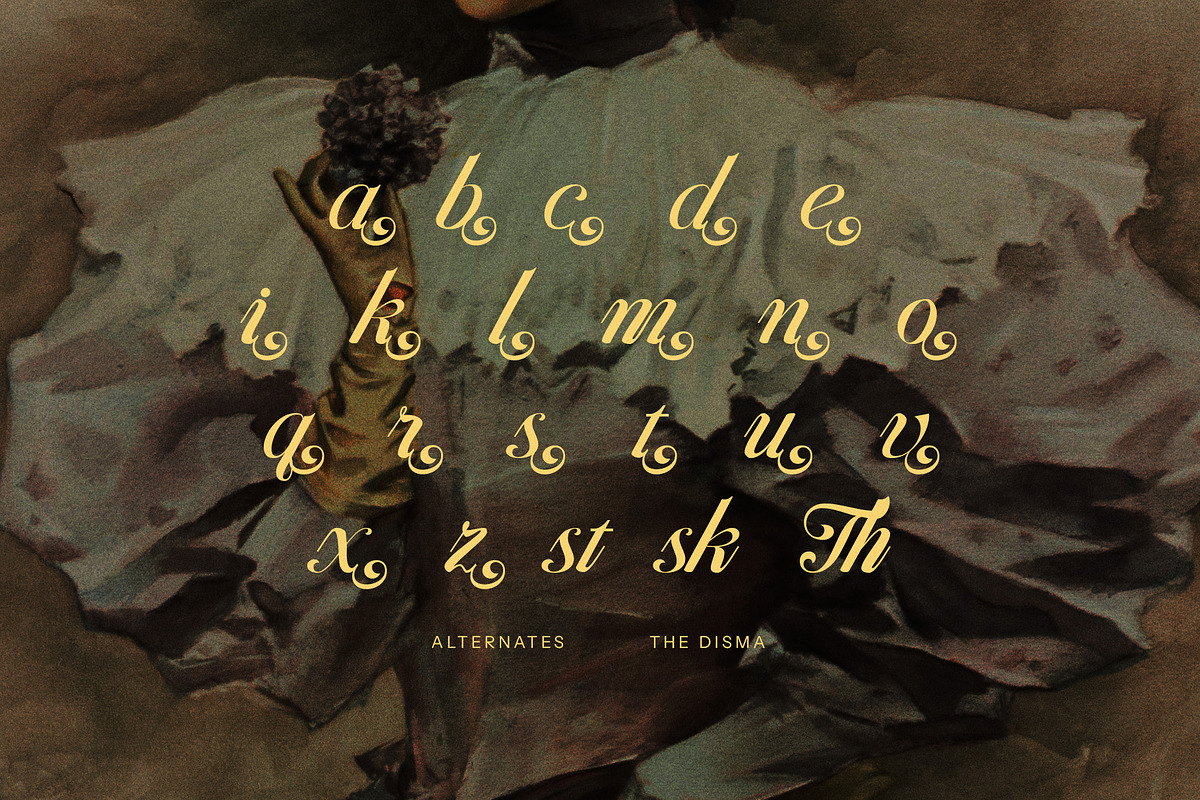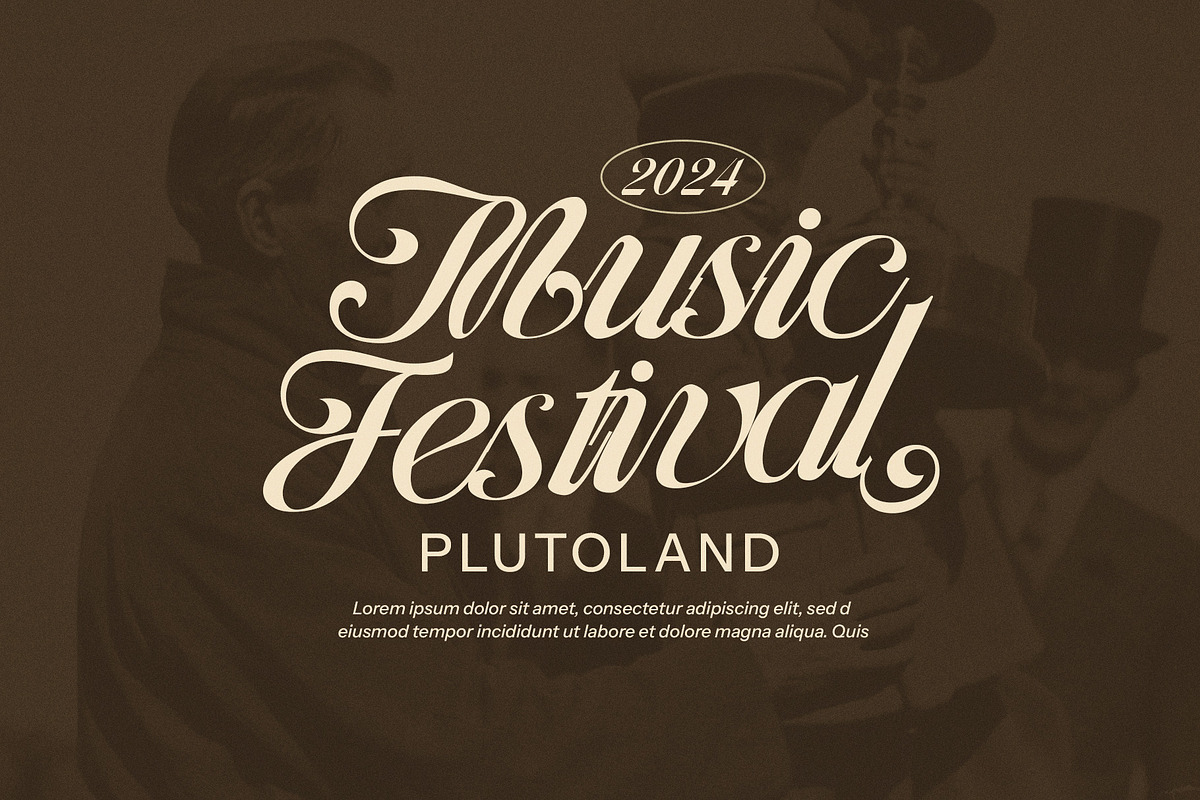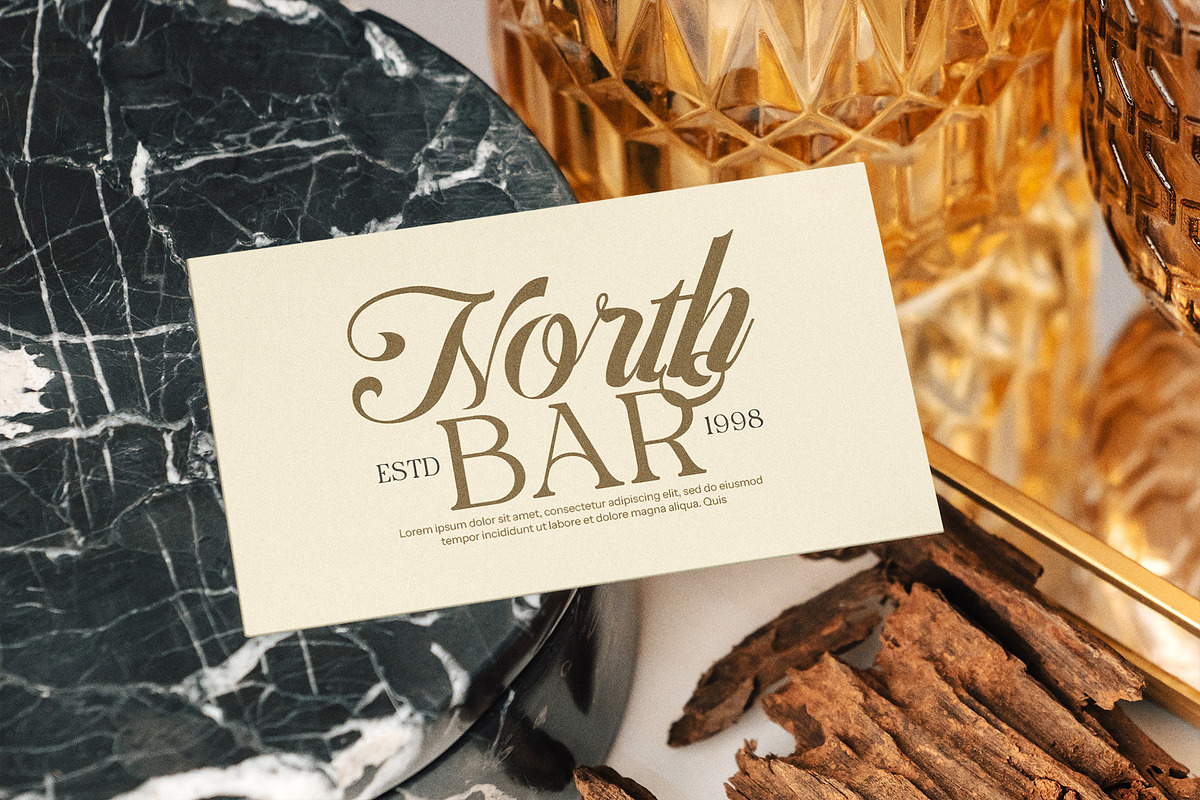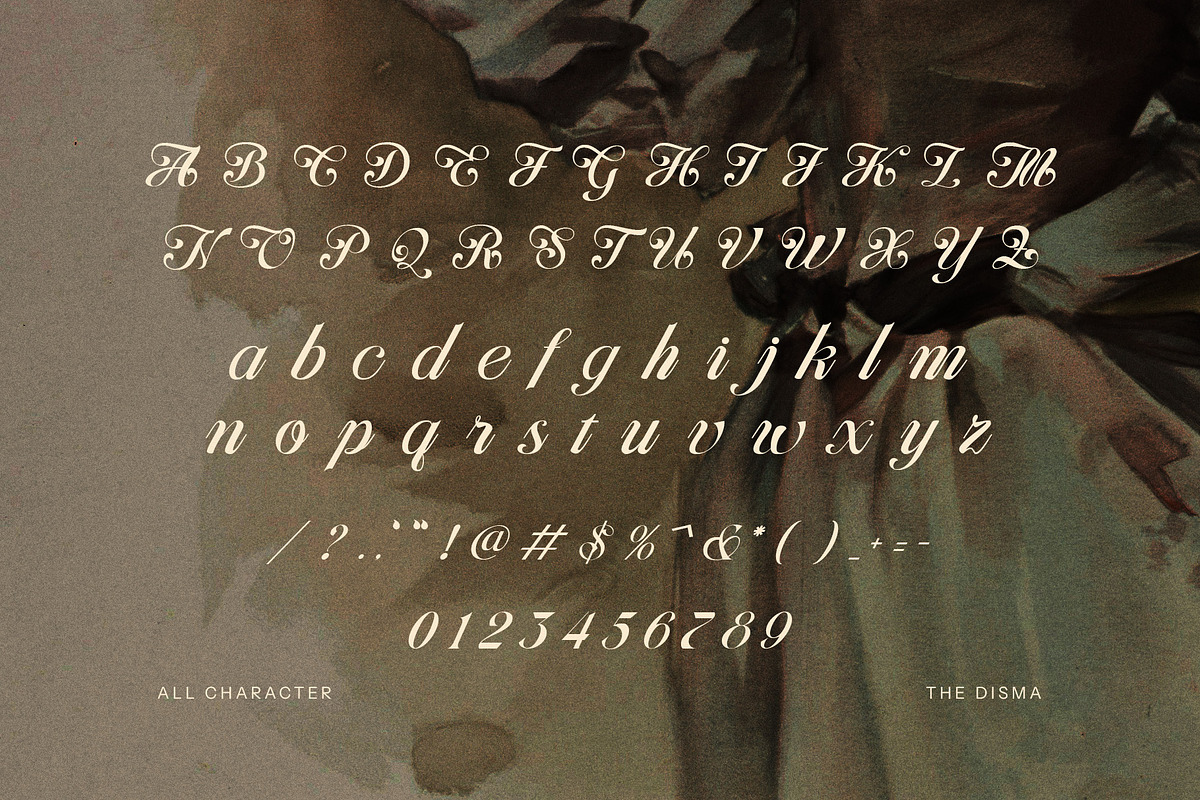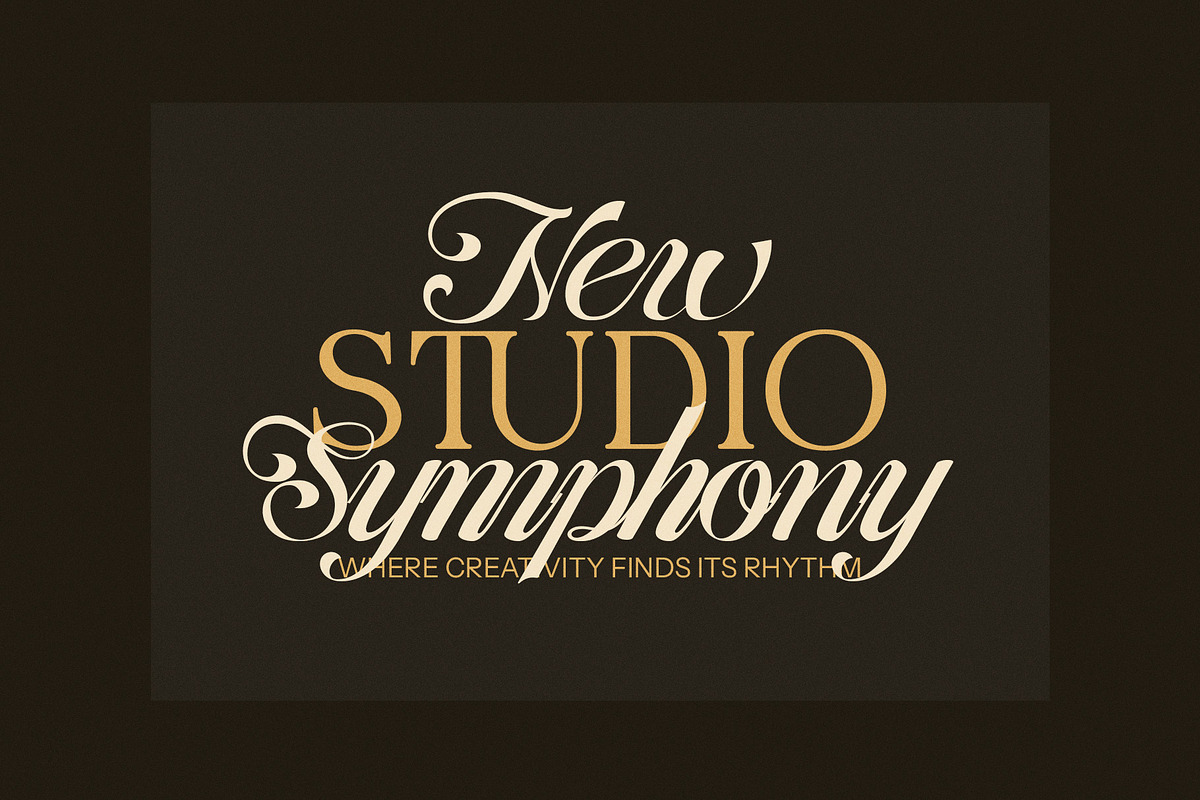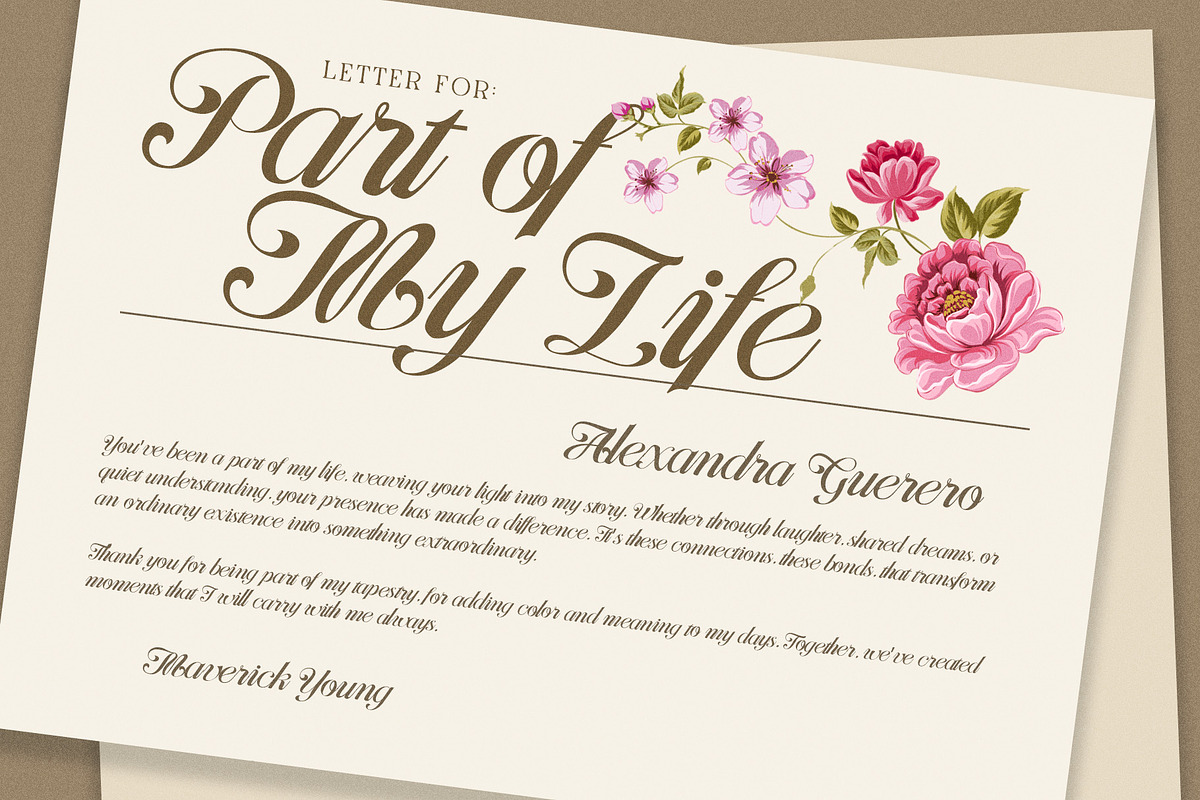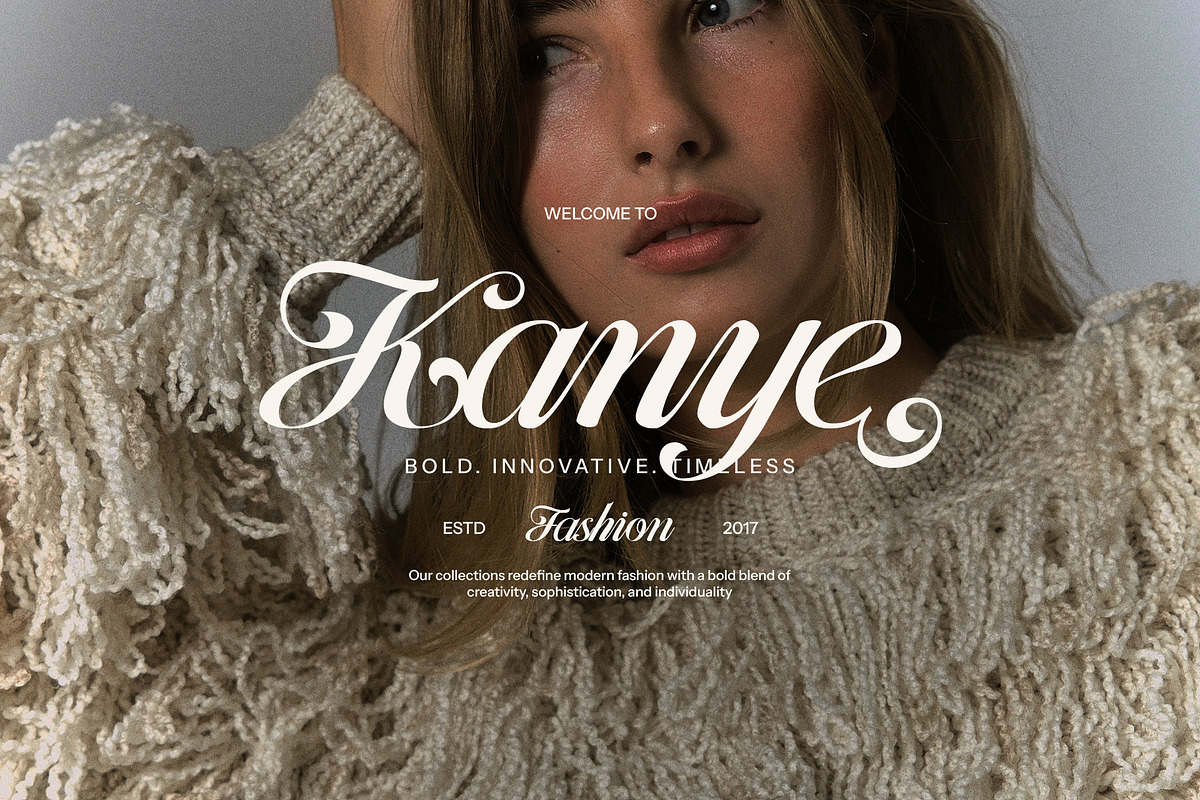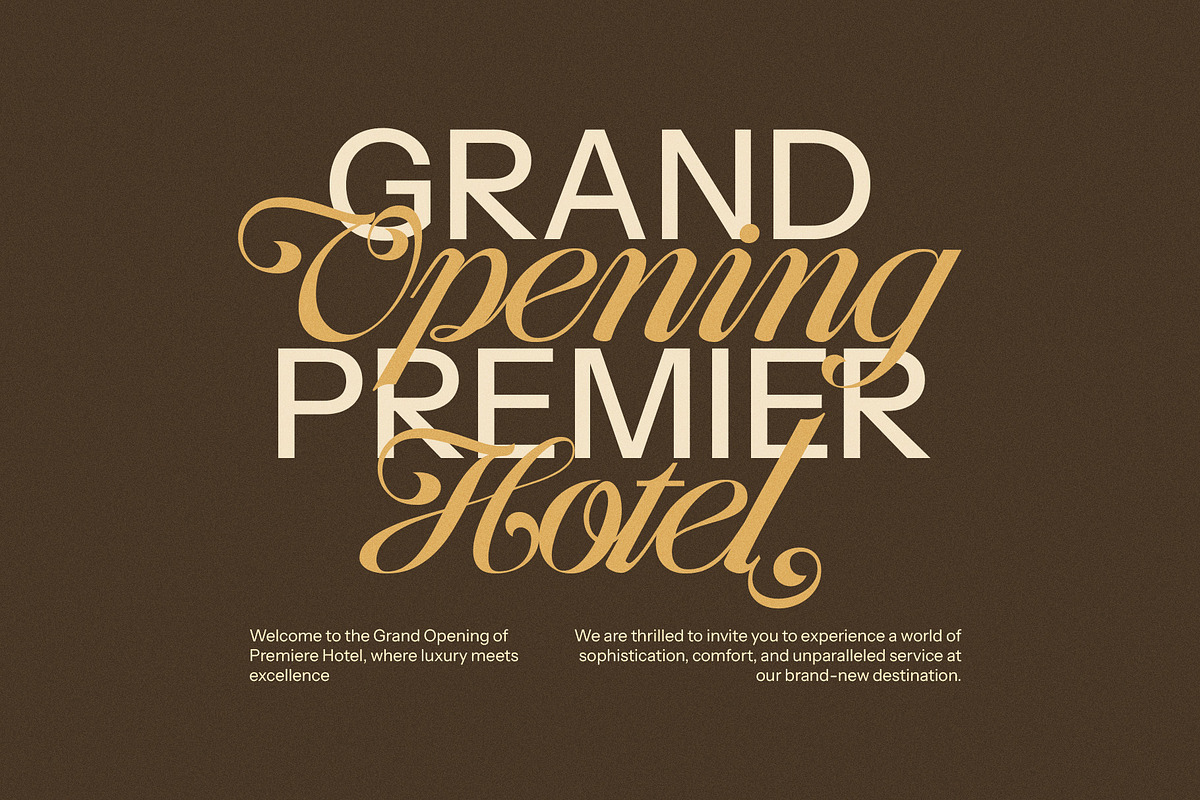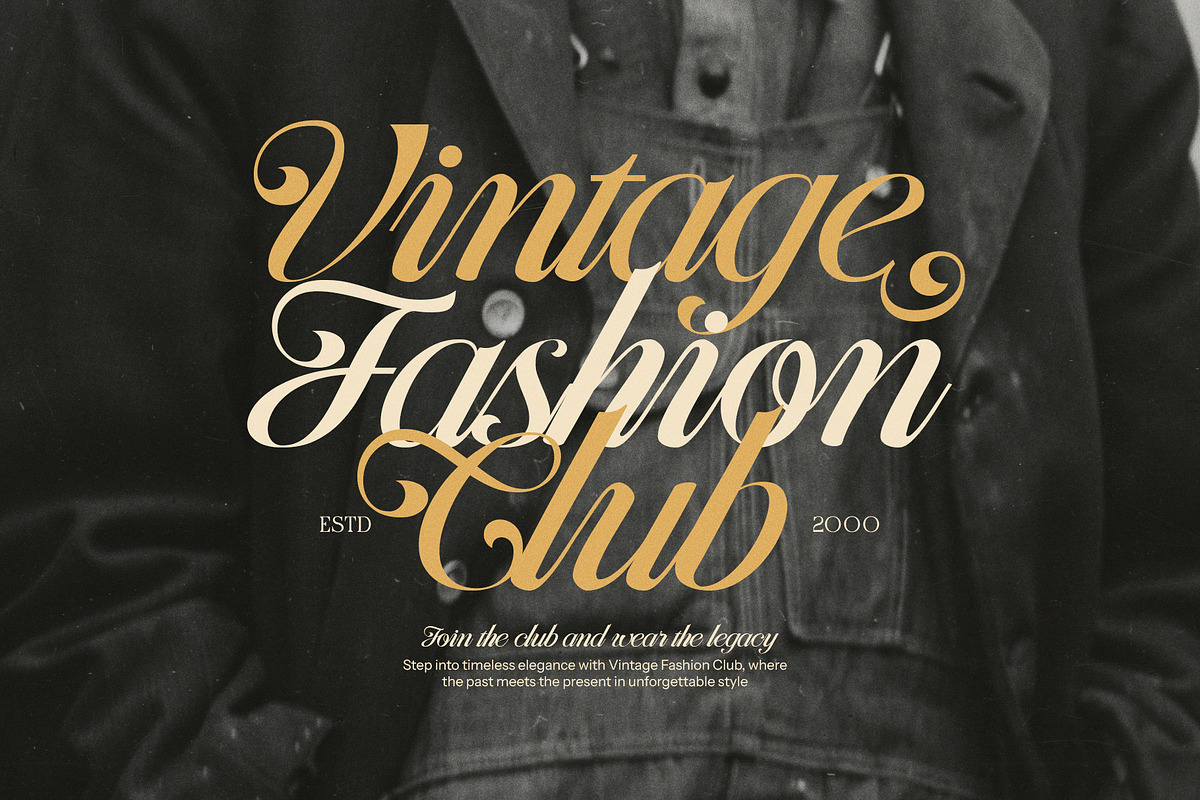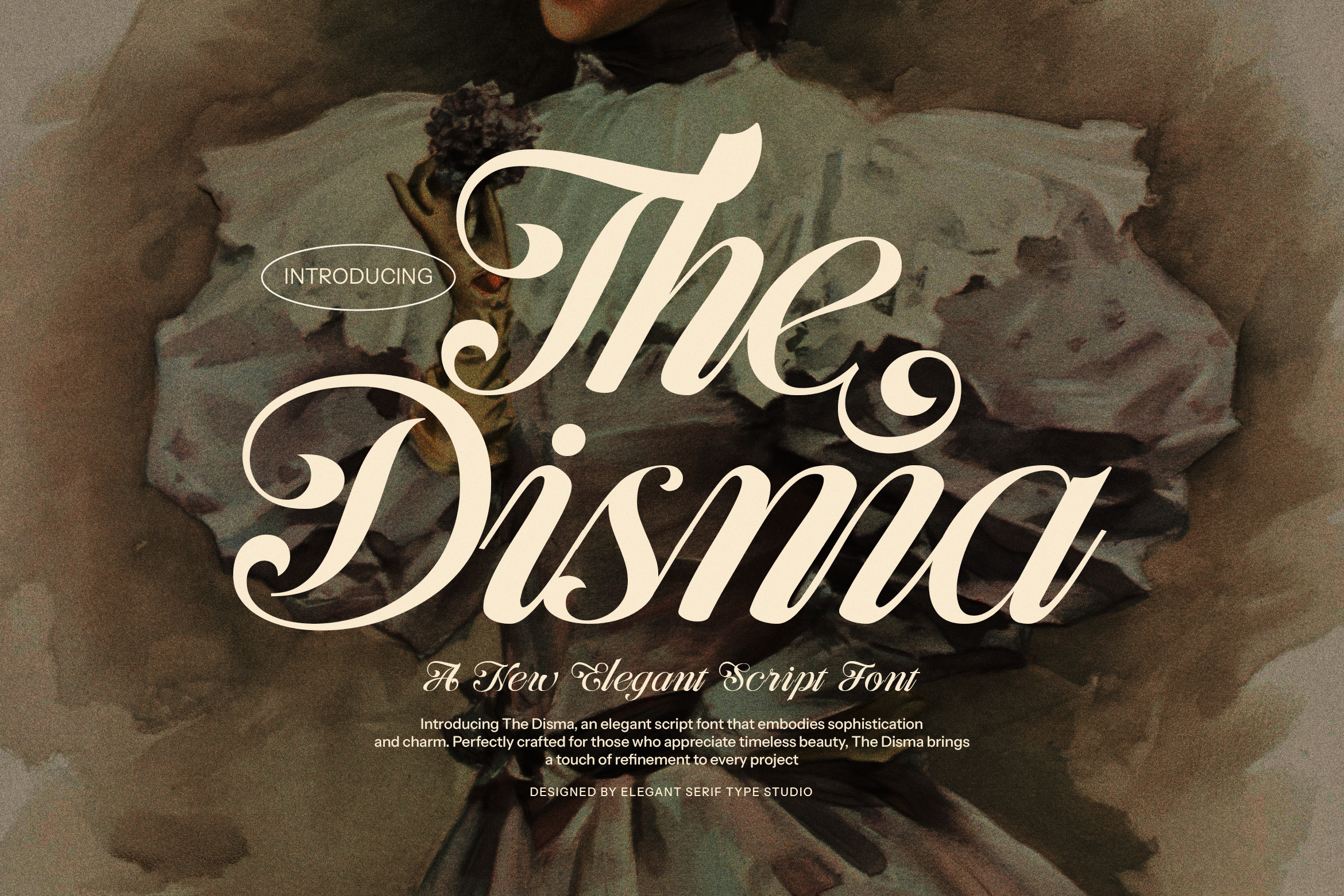
The Disma Calligraphy Script Font
The Disma Calligraphy Script Font is a beautifully crafted, elegant script typeface that captures the essence of modern calligraphy with a timeless, luxurious twist. Designed with smooth, flowing curves and a rich array of alternate characters and stylish ligatures, this font brings a touch of sophistication to every design it graces.
The Disma is ideal for projects that require a refined, artistic feel—from wedding invitations, event branding, and boutique logos, to fashion editorials, album covers, and magazine layouts. Its detailed, handwritten quality adds a personal, custom look, while maintaining readability and visual harmony across both digital and print formats.
What sets The Disma apart is its intricate balance of elegance and versatility. The variety of calligraphy alternates makes it easy to create custom, one-of-a-kind typography that reflects the unique voice of your brand or project. Whether you’re crafting romantic wedding stationery, stylish business cards, creative Canva designs, or elegant website headers, The Disma delivers a luxurious and expressive style that speaks volumes.
Whether you're working on a classic invitation suite, a high-fashion branding project, or a heartfelt personal message, The Disma Calligraphy Script Font adds that perfect blend of creativity and elegance. It's the font of choice for creatives who want their typography to look beautiful, meaningful, and meticulously designed.
Elevate your work with The Disma—where every letter feels like a brushstroke of art and every word becomes a part of something unforgettable.